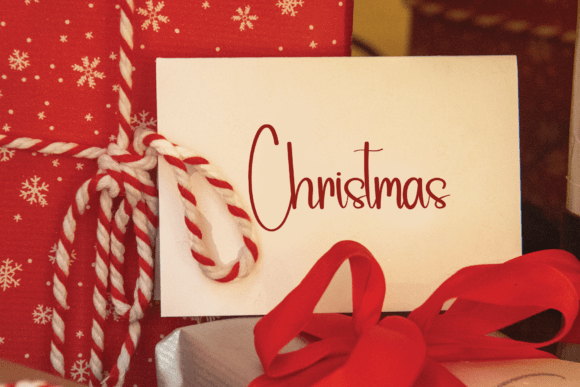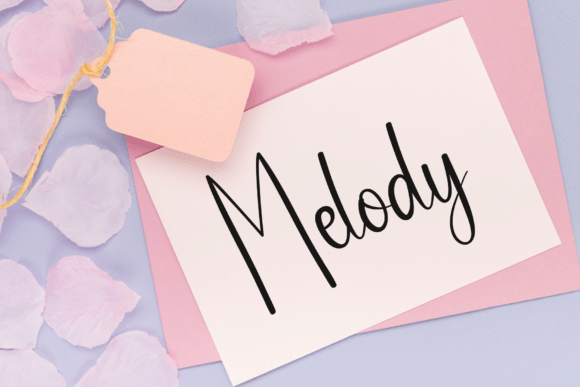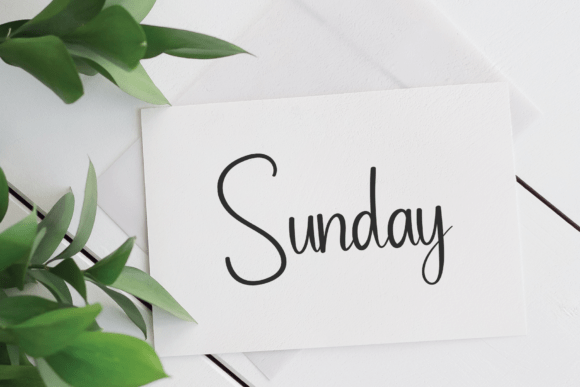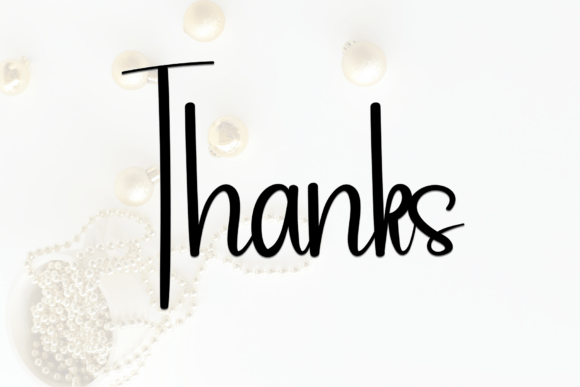
Bubble Christmas Font: The Perfect Addition to Your Holiday Designs
Are you looking for a unique and eye-catching font to make your holiday designs stand out? Look no further than the Bubble Christmas font! This handwritten font, designed to resemble marker-drawn letters, brings a relaxed and sporty feel to any design project. In this article, we’ll explore the features and benefits of the Bubble Christmas font, and how it can elevate your branding, marketing materials, and creative projects.
What is Bubble Christmas Font?
Bubble Christmas font is a carefully crafted, handwritten typeface that mimics the look of letters drawn with a marker. Its casual, laid-back vibe makes it an excellent choice for designers and crafters seeking to add a personal touch to their work. The font’s relaxed feel is balanced by an air of sophistication, making it suitable for a wide range of applications.
Key Features of Bubble Christmas Font
- Handwritten style: The Bubble Christmas font boasts a genuine, handwritten appearance that adds warmth and personality to any design.
- Marker-like texture: The font’s texture, reminiscent of marker-drawn letters, gives it a unique and distinctive look.
- Relaxed and sporty feel: The Bubble Christmas font exudes a casual, laid-back vibe that’s perfect for designs that require a friendly, approachable tone.
- Versatile: This font is suitable for a wide range of applications, from branding and logos to wedding supplies, greeting cards, and marketing promotions.
Use Cases for Bubble Christmas Font
The Bubble Christmas font is an incredibly versatile typeface that can be used in various design projects. Here are some ideas to get you started:
- Branding and logos: Create a memorable brand identity with the Bubble Christmas font, perfect for businesses seeking a friendly, approachable image.
- Wedding supplies: Add a personal touch to wedding invitations, stationery, and decorations with this charming font.
- Greeting cards: Create eye-catching holiday cards, gift tags, and invitations that showcase the Bubble Christmas font’s unique character.
- Fashion and lookbooks: Use the Bubble Christmas font to add a touch of elegance and sophistication to fashion designs, lookbooks, and marketing materials.
- Marketing promotions: Make your marketing campaigns stand out with the Bubble Christmas font, ideal for creating engaging ads, flyers, and brochures.
Why Choose Bubble Christmas Font?
With so many fonts available, why should you choose the Bubble Christmas font for your design projects? Here are a few compelling reasons:
- Uniqueness: The Bubble Christmas font’s distinctive, handwritten style sets it apart from more traditional typefaces.
- Versatility: This font can be used in a wide range of applications, from casual designs to more formal projects.
- Elegance and sophistication: Despite its casual feel, the Bubble Christmas font exudes an air of elegance and sophistication, making it perfect for designs that require a touch of luxury.
The Bubble Christmas font is an exceptional addition to any designer’s toolkit, offering a unique blend of casual charm and sophisticated elegance. Whether you’re working on branding, marketing materials, or creative projects, this font is sure to make your designs stand out. With its versatility, distinctive style, and wide range of applications, the Bubble Christmas font is an excellent choice for designers and crafters seeking to add a personal touch to their work.